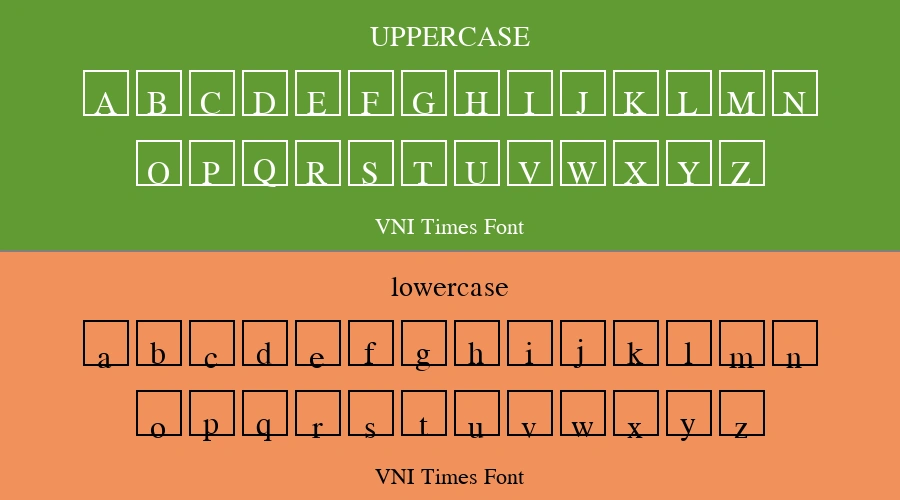
About VNI Times Font
VNI Times Font stands out for its distinctive combination of harmonic curves and visual comfort. Ideal for newspaper text, it provides the consistency and market appeal that professional projects demand. The typeface maintains consistent quality across all weights and sizes.
Key features include refined flared stems and practical standard ligatures, enhancing typographic expression. In hero imagery applications, VNI Times Font demonstrates exceptional scanning accuracy. The x-height and historical references contribute to its distinctive character and professional appeal.